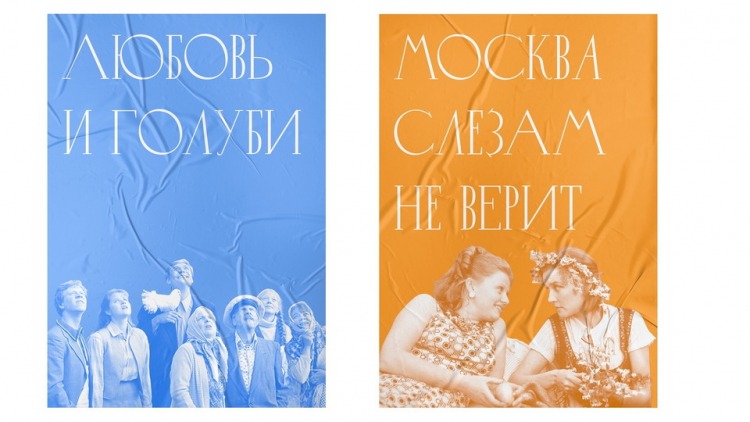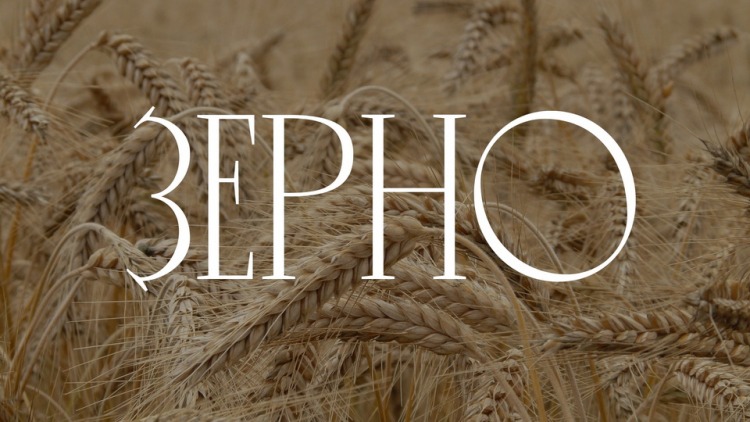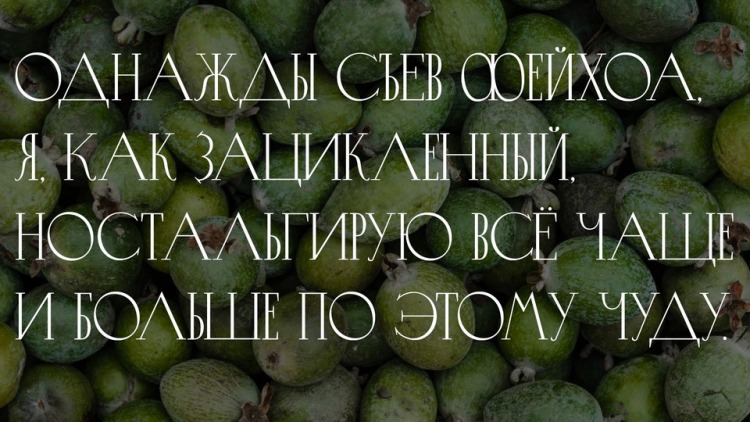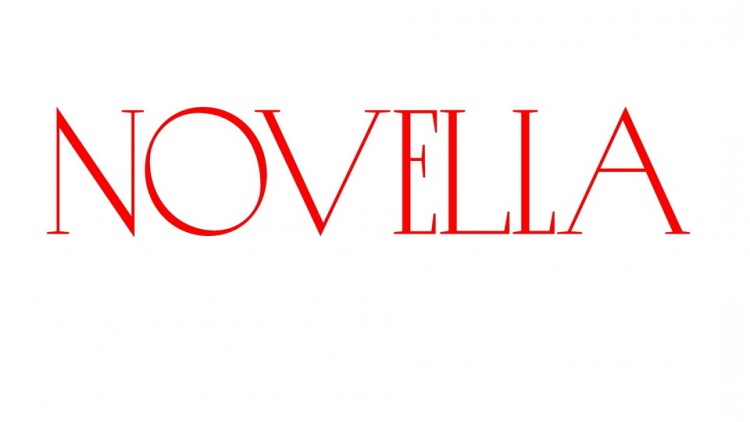
Novelist Serif Font
This is high contrast serif font features a mixed modern-classic design. Made from font designer named Alena Krachkovskaya. This font is a beautiful typeface created on the basis of lettering by Lev Zbarsky in the design of “Love Elegies” by Publius Ovid Nazon in 1963. Due to the different widths in the reference, it was decided to make two versions of each – narrow and wide.